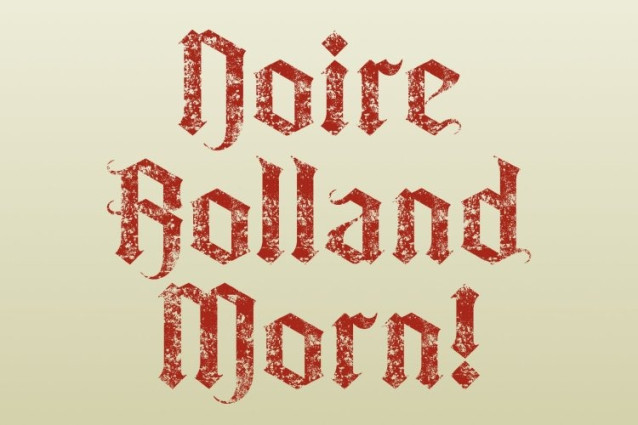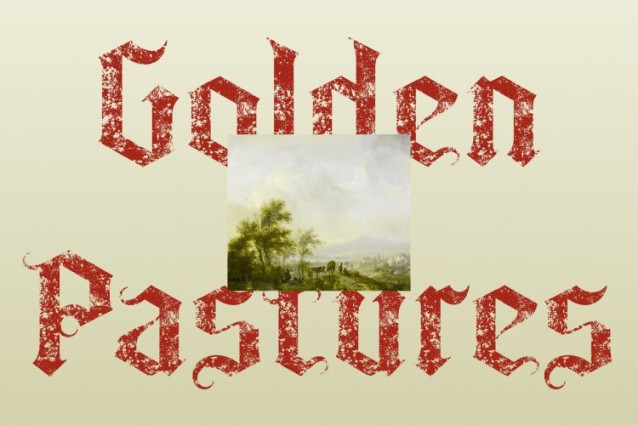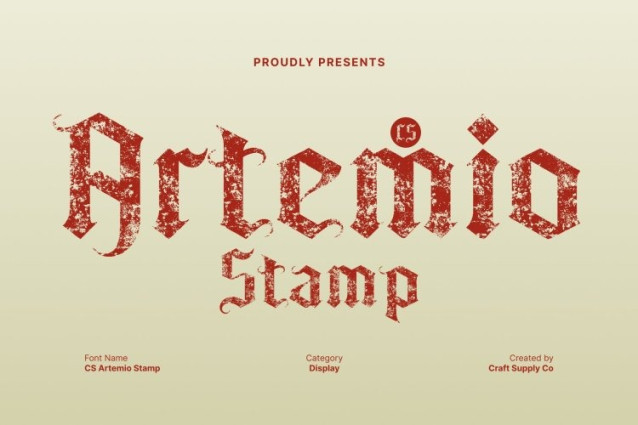
CS Artemio Stamp Font
CS Artemio Stamp Font This is a bold display font inspired by classic Blackletter traditions, reimagined with modern decorative flair. Its sharp angles, dramatic strokes, and ornate shapes create a commanding visual presence that immediately draws attention. Designed for expressive and impactful displays, this font brings historical richness into contemporary creative work.
Artistic Stamp Texture for a Raw, Handcrafted Finish
Enhancing its dramatic letterforms, this font incorporates a textured stamp effect that adds depth, grit, and artistic character. The worn, handcrafted look gives each glyph a unique visual rhythm, adding emotion and authenticity to the overall design. This texture amplifies the mysterious and expressive tone, making the font feel alive and full of artistic edge.
Perfect for Mysterious, Dramatic, and Expressive Designs
With its medieval-inspired structure and textured finish, delivers a powerful mood. It evokes mystery, intensity, and storytelling, making it ideal for projects that require atmosphere and dramatic impact. Whether you’re crafting gothic visuals, dark fantasy themes, or rebellious creative concepts, this font sets the tone instantly.
Ideal for Posters, Branding, Album Covers, and Bold Displays
This font thrives in bold display applications. Use it for posters, edgy branding, album artwork, merchandise, or event promotion where strong emotion and visual drama are key. Its expressive Blackletter style combined with artistic stamping ensures that every design stands out with personality, depth, and unmistakable presence.